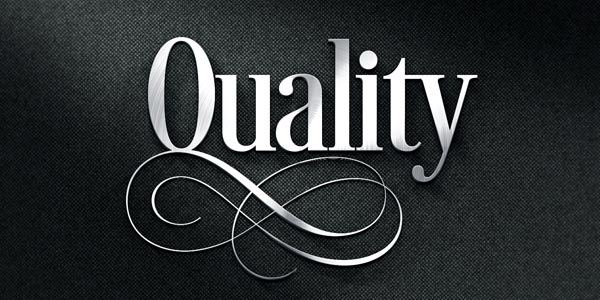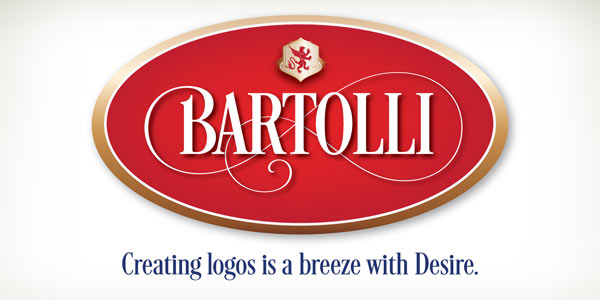
The Desire font family, a set of decorative Fonts.
Font designer Charles Borges de Oliveira has spent more than five years to design and develop the Desire font. This typeface offers a beautiful and elegant design. It’s hard to believe, but Desire is packed with 644 alternate letters, 98 ligatures, 8 flourishes and 6 catchwords. A huge set of options will help you to create unique logos, headlines, and titling. Desire’s shape is influenced by Victorian and modern type designs. It’s a decorative and festive font well suited for book covers, editorial design, invitations, advertising, and branding projects. The video at the end of this post is a brief guide how to use Desire in Illustrator.